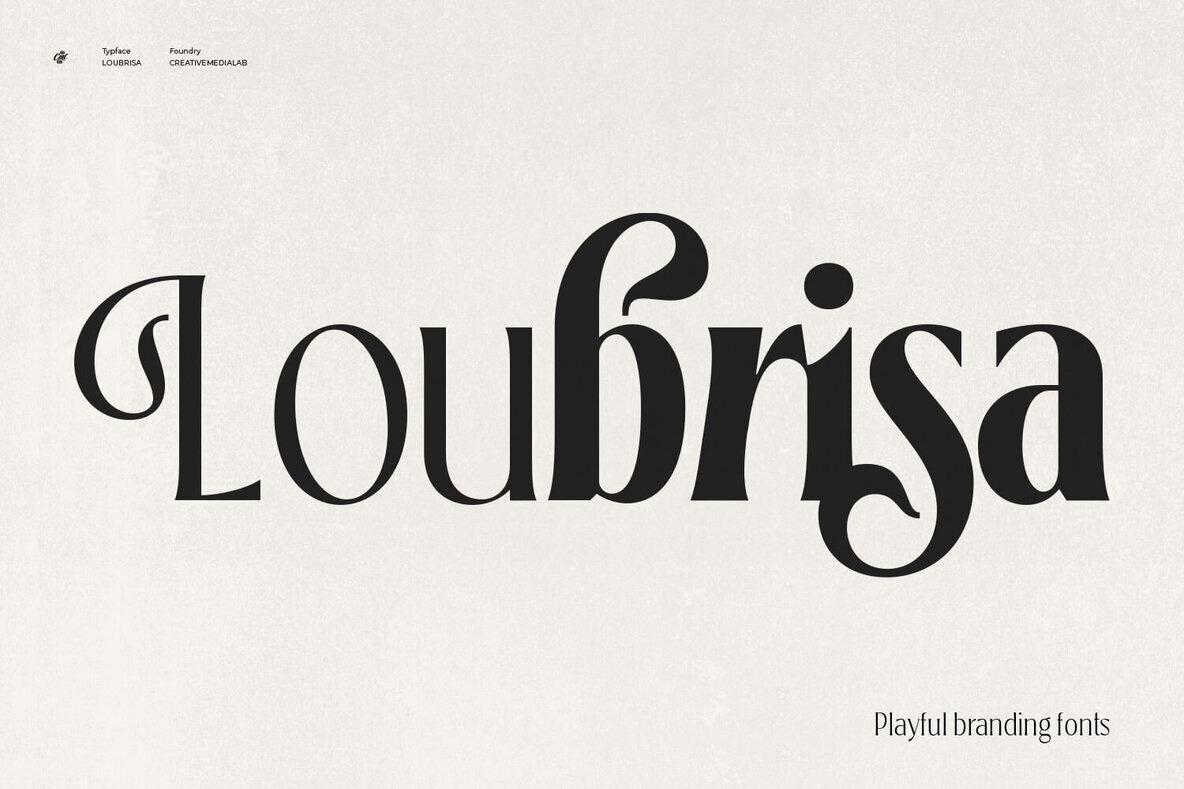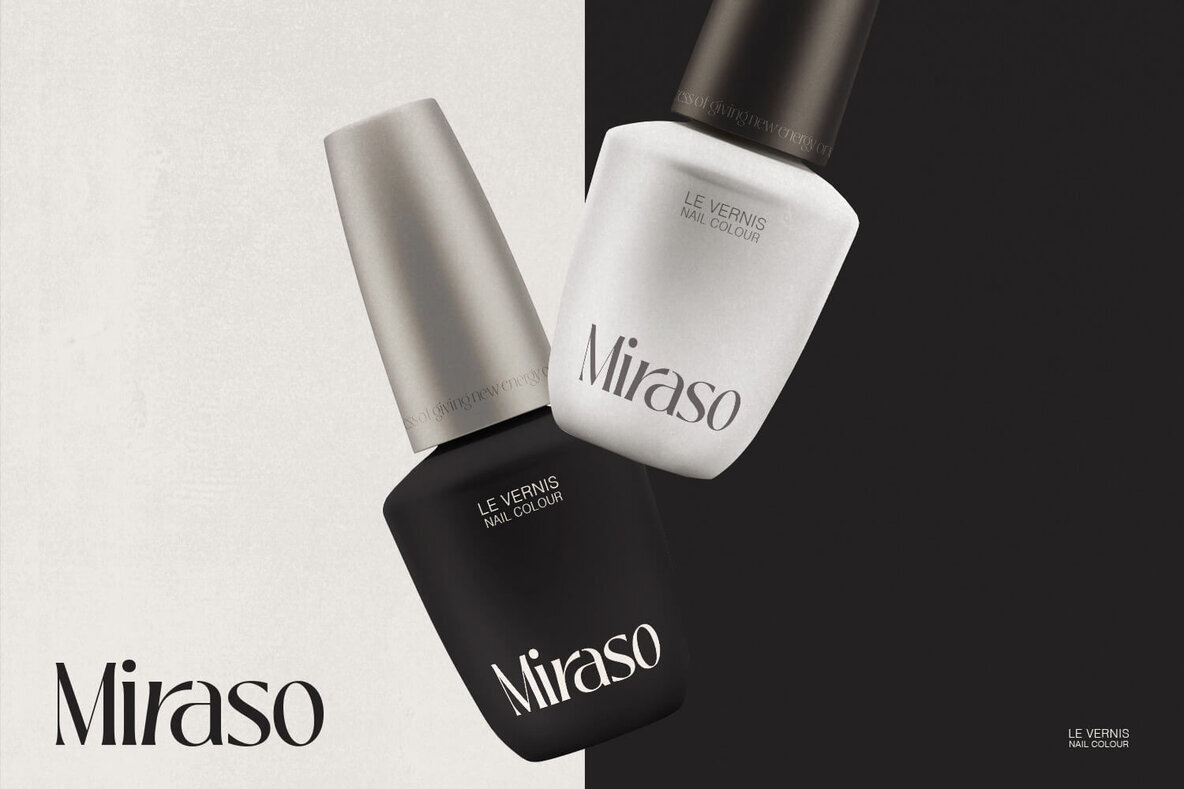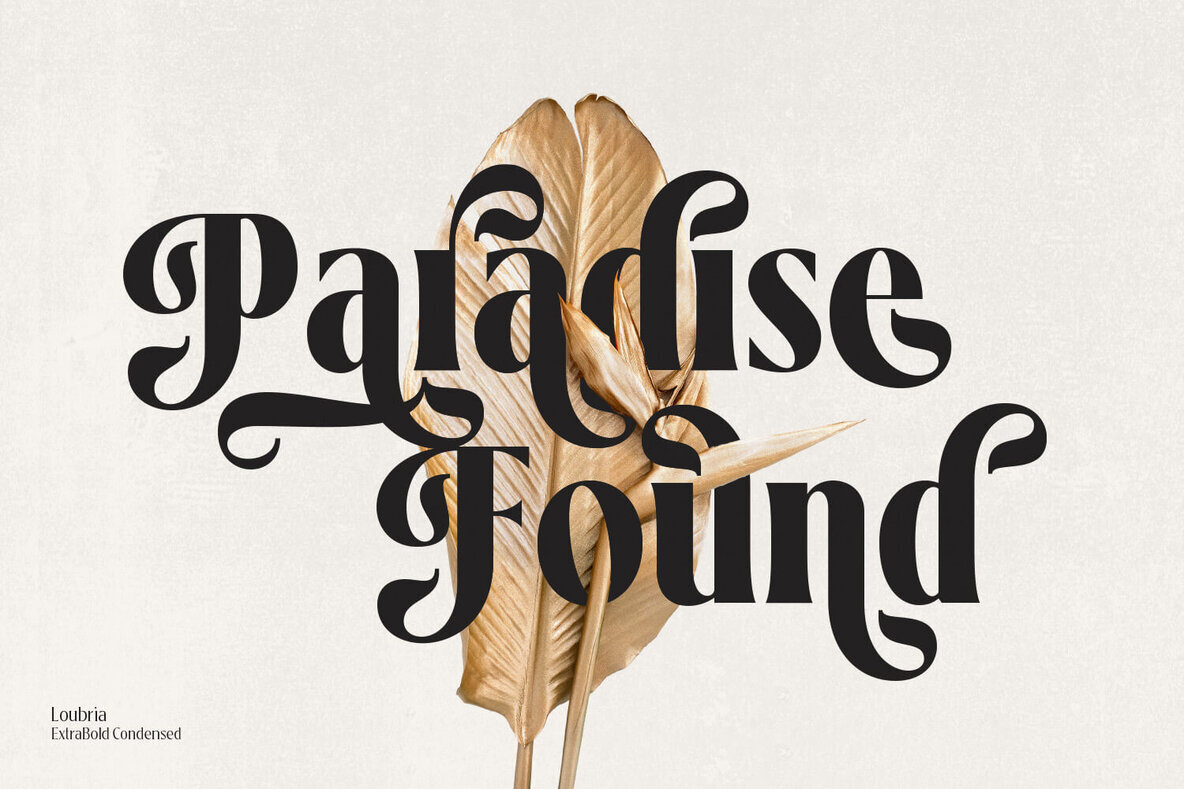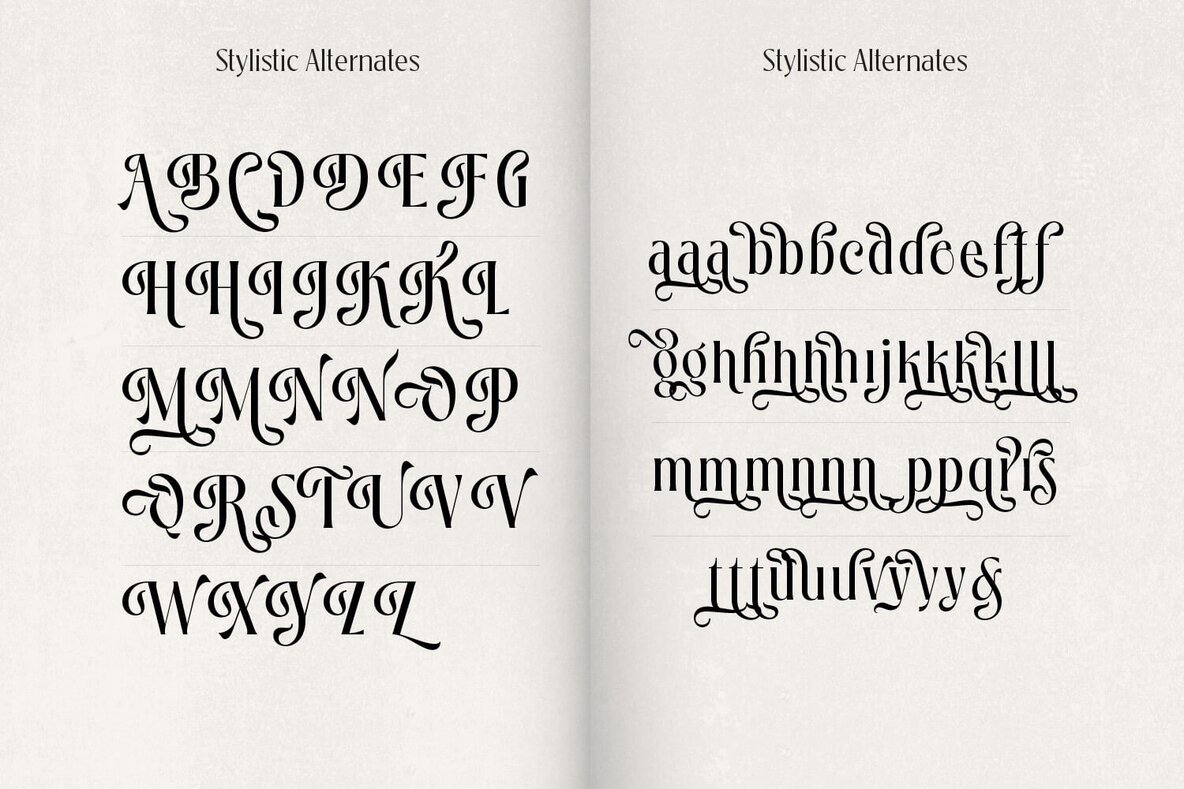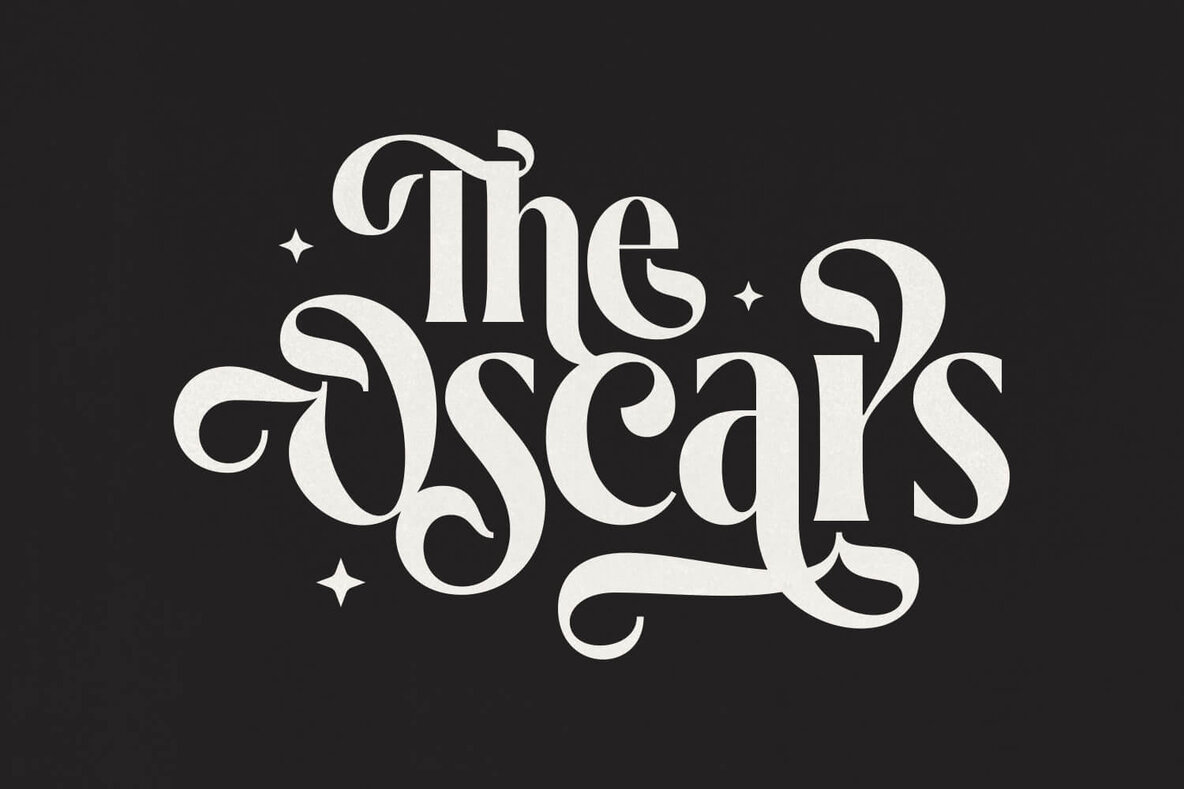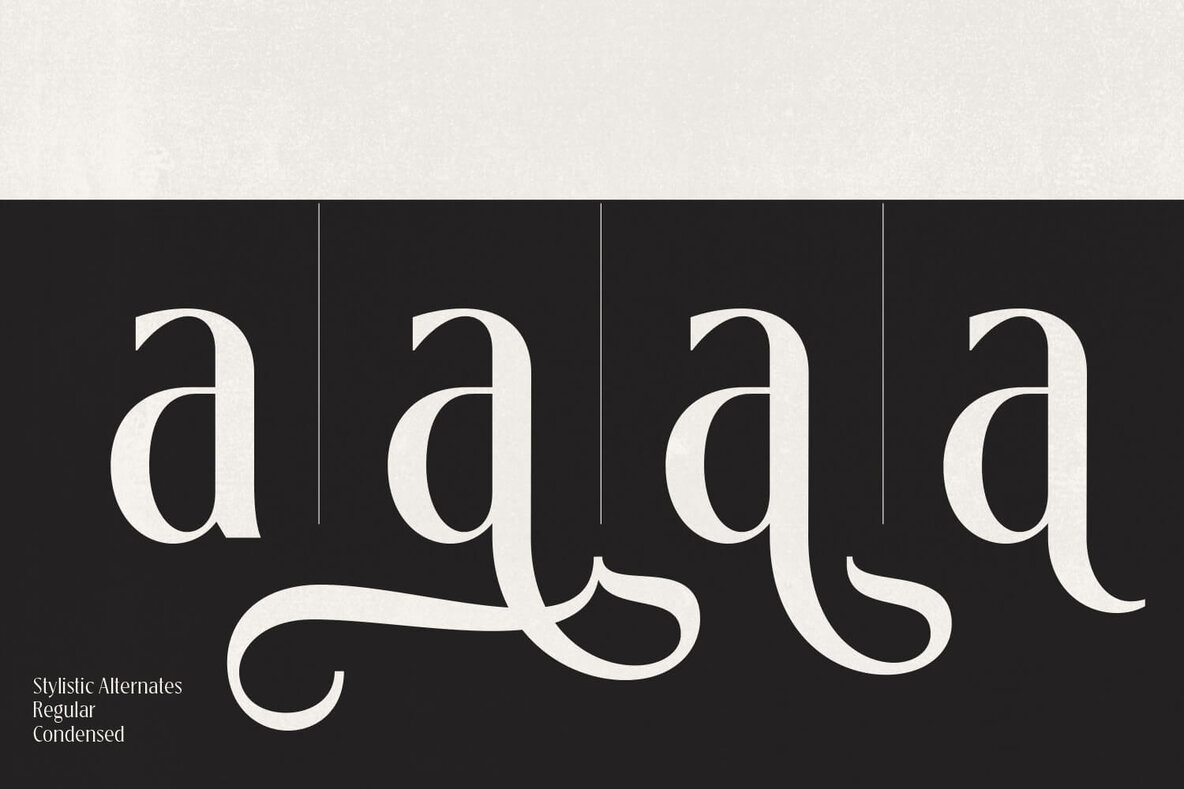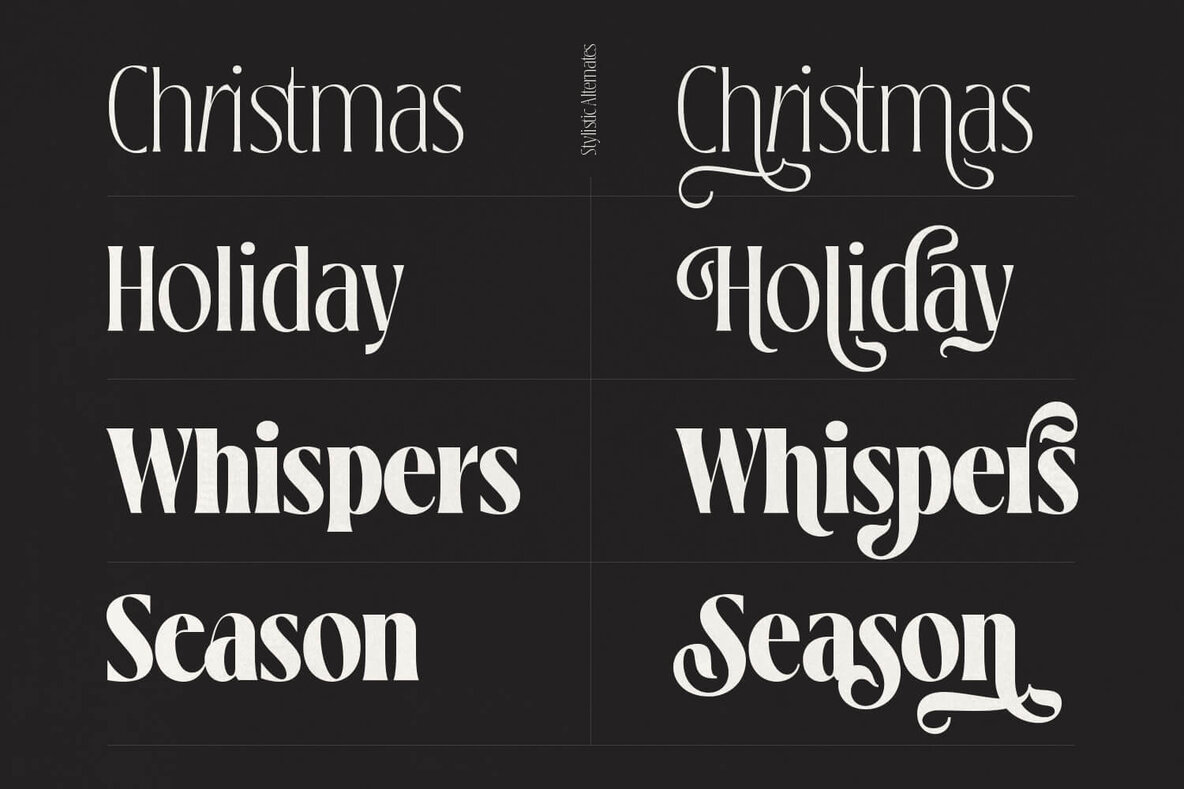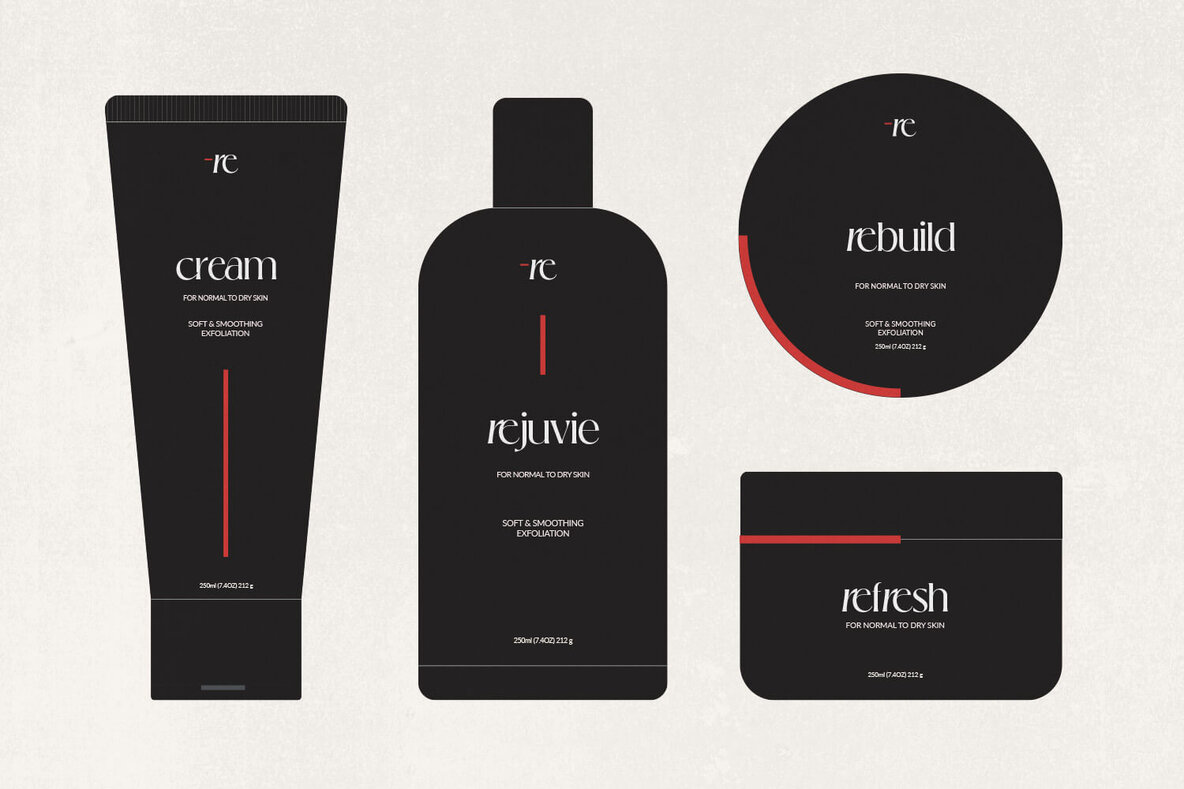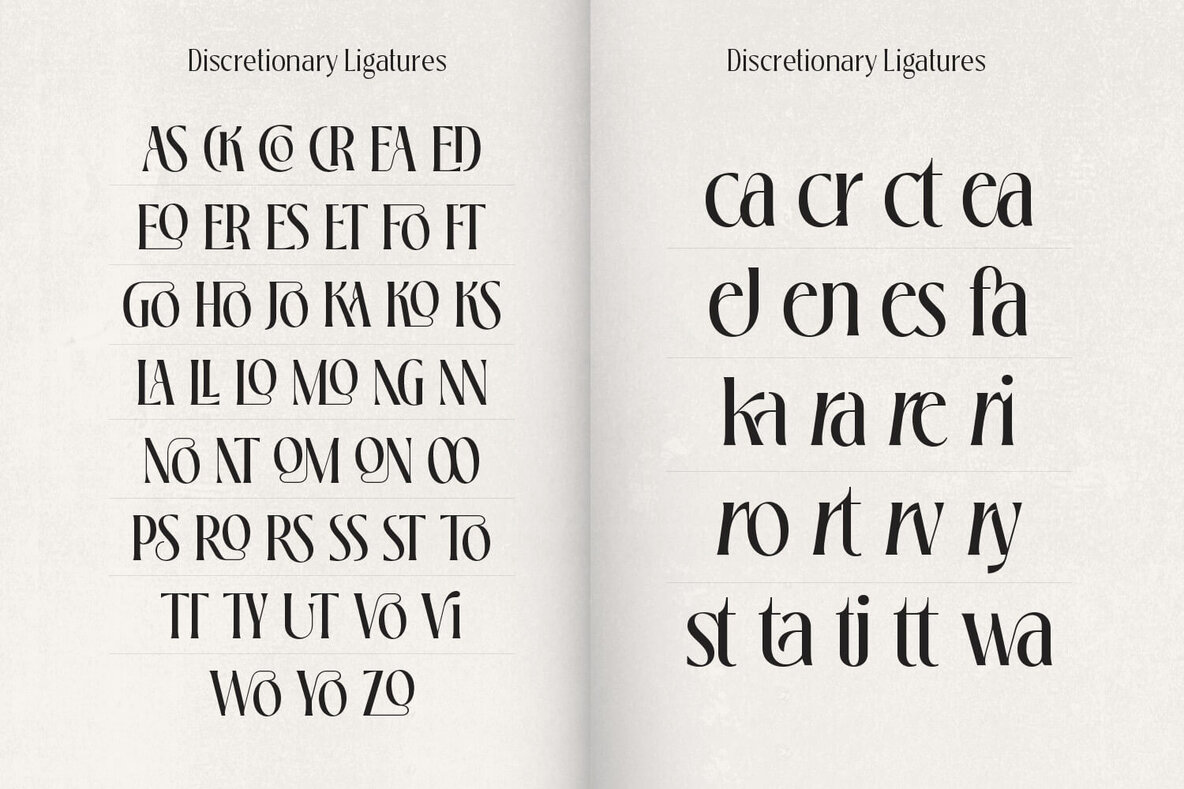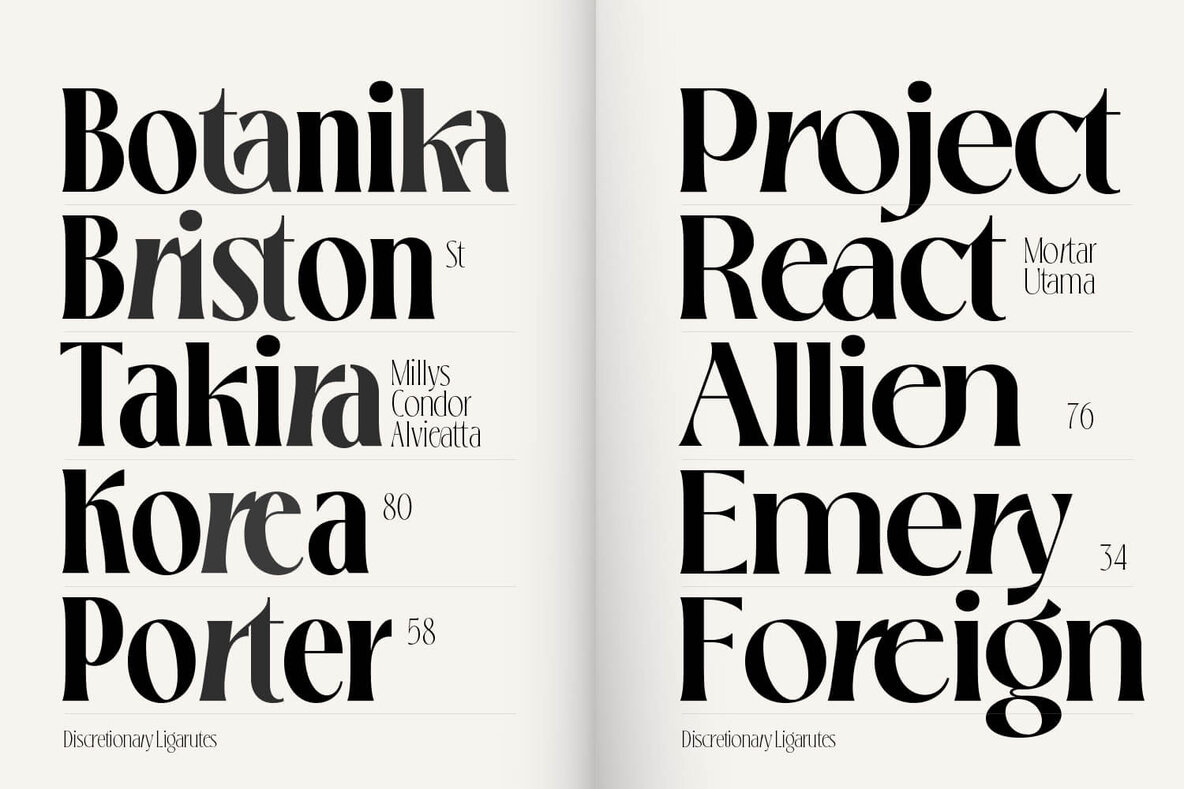
Loubrisa Font
Discover Loubrisa, a stylish and versatile serif font family that adds elegance to any project. Available in two unique widths—Condensed and Normal—with seven adaptable weights each, Loubrisa offers a perfect balance of style and functionality. Ideal for headlines, fashion and beauty branding, luxury logos, and editorial design, Loubrisa enhances your creative endeavors with its sophisticated charm.Introducing Loubrisa: A Playful Serif Font Family